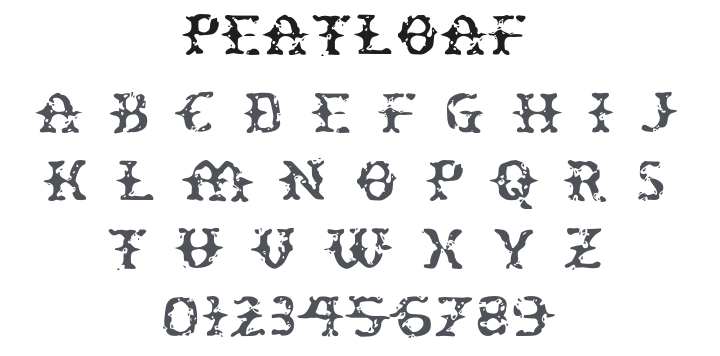
Peatloaf Font
About Peatloaf
Peatloaf is a bold, heavily distressed serif display typeface with old-west letterforms that look soaked, bloated, and eaten away — edges bubble and blister as if the type was left in damp earth for decades. The underlying structure hints at classic western slab serifs but the decay overwhelms it completely. Perfect for horror western designs, Halloween posters, swamp-themed branding, survival game titles, and anything needing grimy, decomposed atmosphere.